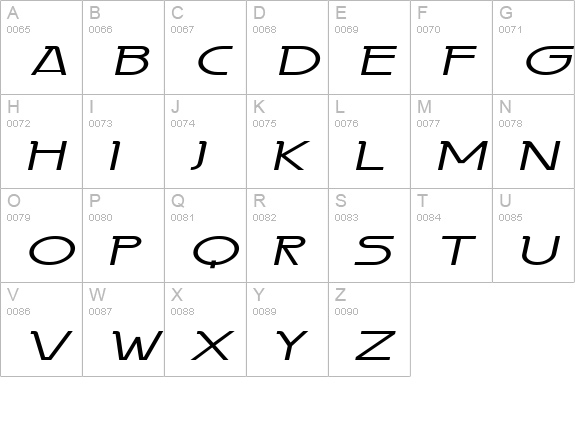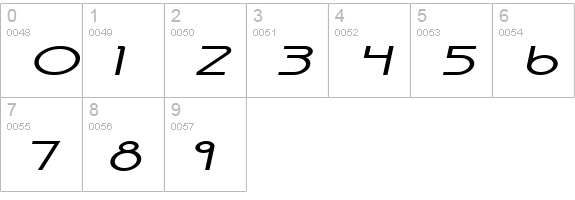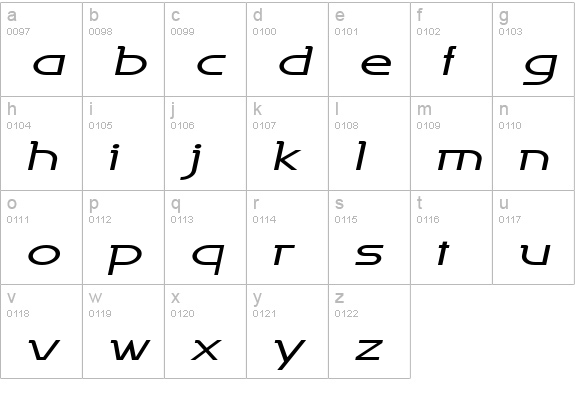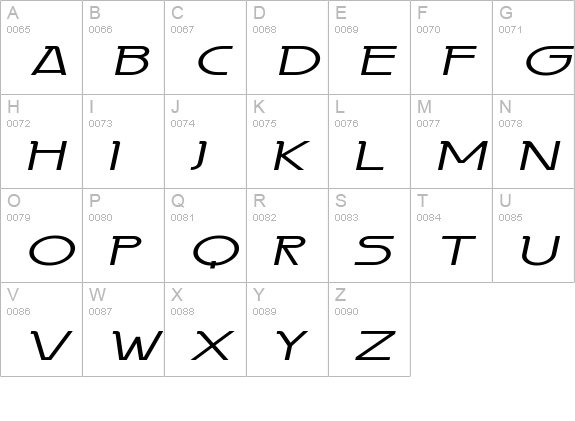
Persia Extended Italic Font Details
Persia Extended Italic is a distinctive, extended-width, italic variant in the Persia typeface family \xE2\x80\x94 well suited to design and typography projects.
Persia Extended Italic font is a stunning and elegant typeface that effortlessly captures the essence of sophistication and refinement. With its graceful curves and stylish flair, this font is perfect for adding a touch of class to any project. The extended italic style of Persia font enhances its versatility, making it ideal for a wide range of design applications. Whether you're working on branding materials, invitations, advertisements, or any other creative project, this font will elevate your work to new levels of visual appeal. One of the most fantastic aspects of Persia Extended Italic font is that it is available for free. Yes, you heard that right! This exquisite typeface can be freely downloaded from FontsMarket.com, allowing you to incorporate its timeless beauty into your designs without any cost. Created with meticulous attention to detail, Persia Extended Italic font is a testament to the craftsmanship of its designer. Every letter is meticulously designed to ensure legibility and visual harmony, resulting in a font that is both visually pleasing and easy to read. The versatility of Persia Extended Italic font is further enhanced by its broad language support, ensuring that it can be used for various projects worldwide. Whether you're designing in English, Spanish, French, German, or any other language, this font will seamlessly adapt to your needs. With its sleek and modern aesthetic, Persia Extended Italic font effortlessly combines tradition with contemporary design trends. Its italic style adds a touch of elegance and sophistication, making it the perfect choice for projects that require a refined and polished look. So why wait? Go ahead and download Persia Extended Italic font for free from FontsMarket.com. Let this font be the star of your design projects, elevating them to new heights of beauty and style. Enjoy the freedom to create stunning visuals with this exceptional typeface and leave a lasting impression on your audience.